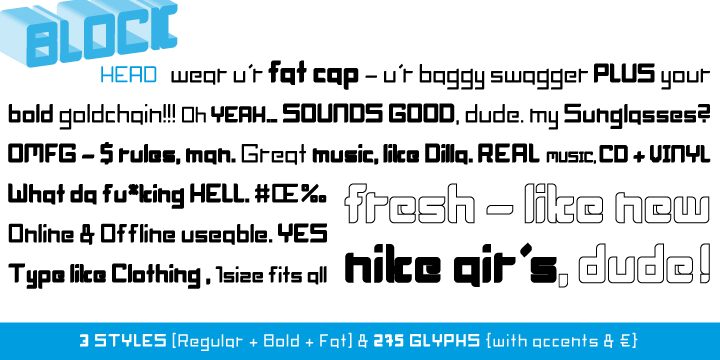
Block Head Fat, designed by Manuel Viergutz, is a free techno display font with massive, rounded rectangular forms and almost no thin strokes. Deep notches and tight openings give it a machine-cut look.
Posters are its most convincing setting, especially for electronic music nights, arcade events, and futuristic club promotions. The dense silhouette also suits game graphics, streetwear merchandise, and packaging for electronics or energy drinks, where the letters can function like compact logos. Its recurring cutaway corners can echo circuit paths, controller shapes, or squared illustration details across a larger campaign.
Block Head is a headline, display, and deco font with three styles: Regular, Bold, and Fat. It contains 275 glyphs, including accents.